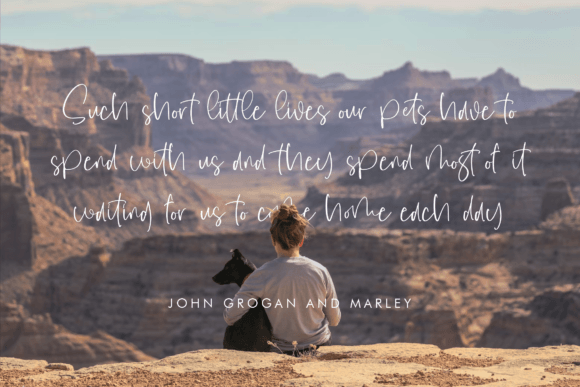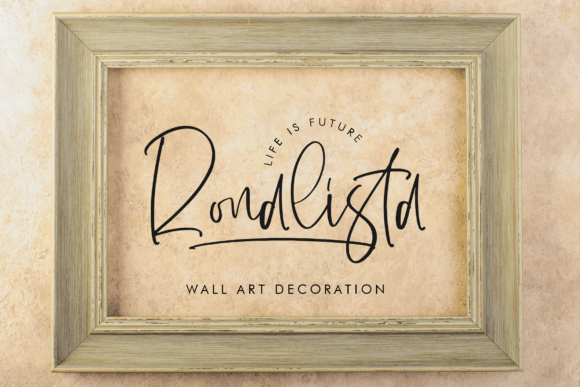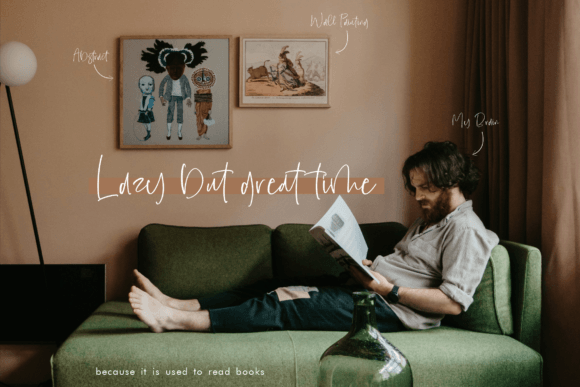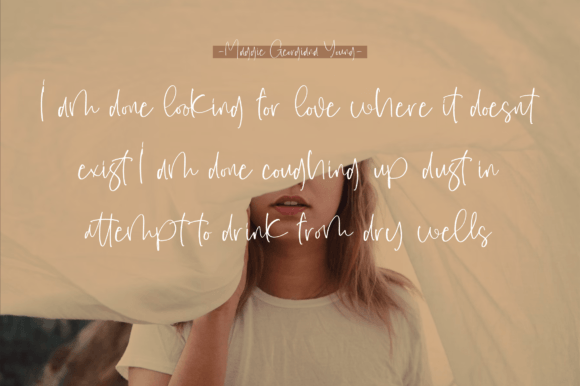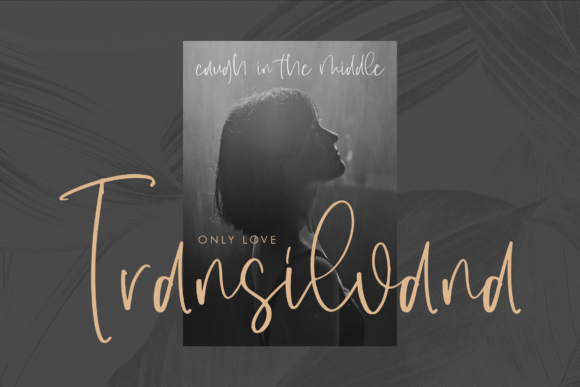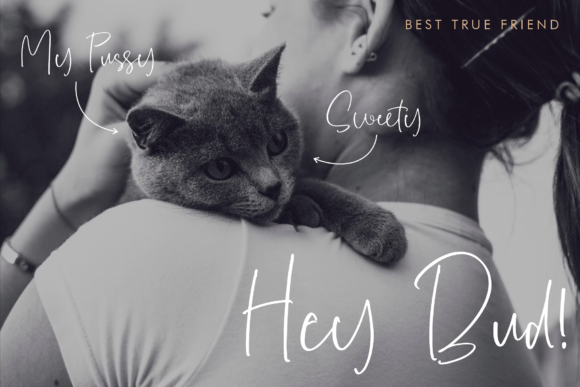
Introduction to Sillvestre Font
Have you ever found yourself stuck on a creative project, searching for that perfect touch to elevate your design from good to great? I’m sure we’ve all been there. For designers, the hunt for the ideal font can be a daunting task. But what if I told you that I’ve discovered a treasure that’s sure to make your designs shine? Enter the enchanting Sillvestre Font, a delightful handwritten font that’s sure to capture the essence of your creativity.
With its elegant and dainty features, the Sillvestre Font is a valuable addition to any designer’s toolkit. Its sweet and delicate swashes make it perfect for a wide range of crafty ideas, from letterheads and titles to stationery. Whether you’re working on a high-quality design project or simply looking for a unique touch, this font is sure to impress.
Key Features of Sillvestre Font
- High-quality design resource ideal for creative projects, offering a unique and stylish touch.
- The font is available in a single weight, making it easy to use and integrate into designs without worrying about font pairing.
- Perfect for use in digital and print projects, the Sillvestre Font is a versatile design resource that can elevate any creative project.
Honest Review: Sillvestre Font
I recently stumbled upon the Sillvestre Font, and I’m excited to share my thoughts on this design resource. As a designer, I’m always on the lookout for high-quality fonts that can elevate my creative projects. The Sillvestre Font has definitely caught my attention, and here’s why.
- The Sillvestre Font boasts a unique and quirky design that’s perfect for adding a touch of personality to your creative projects.
- The font is highly versatile and can be used for a variety of purposes, from branding to web design.
- The Sillvestre Font may not be suitable for formal or professional applications, as its quirky design may come across as unpolished.
Overall, I’m impressed with the Sillvestre Font’s unique design and versatility. While it may have some limitations, it’s definitely a great addition to any designer’s toolkit. If you’re looking for a high-quality, free font to spice up your creative projects, the Sillvestre Font is definitely worth checking out.
How to Use Sillvestre Font
The Sillvestre Font is a high-quality, free design resource ideal for various creative projects. Its transparent background makes it perfect for overlaying on images or using as a standalone element.
Tips for Getting the Most Out of Sillvestre Font
Use the Sillvestre Font in combination with other design elements to create visually appealing graphics.
Experiment with different font sizes and colors to achieve the desired effect.
The Sillvestre Font is ideal for:
Creating social media graphics
Designing posters and flyers
Developing branding materials